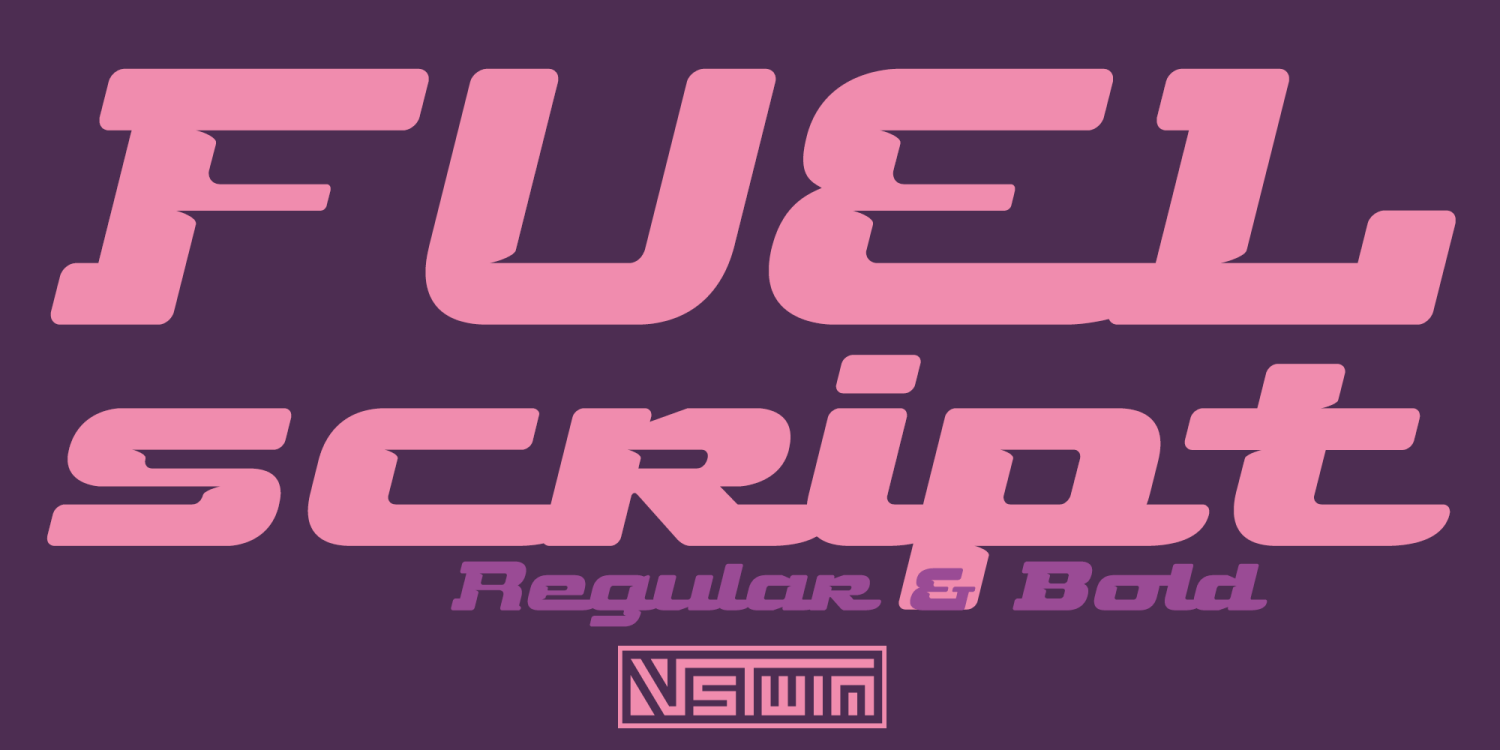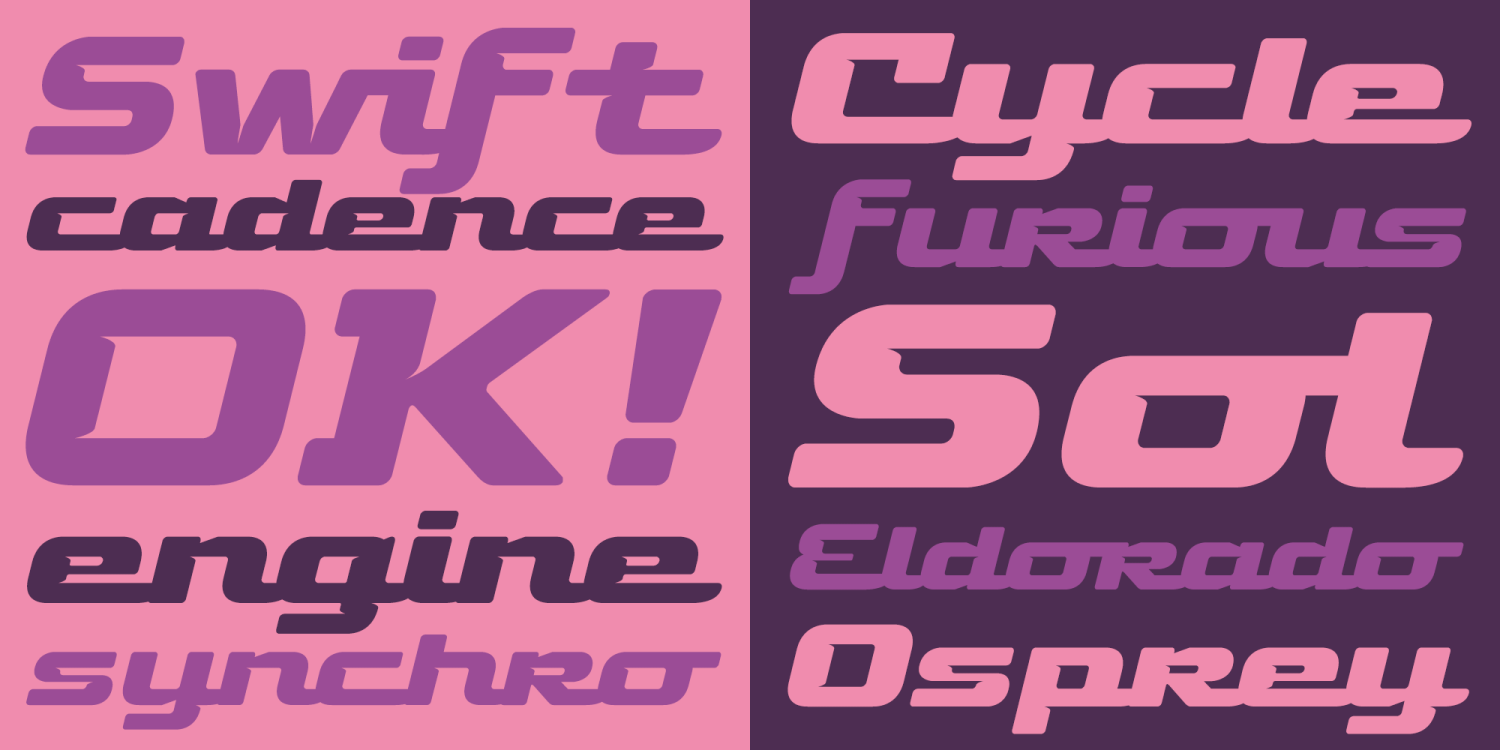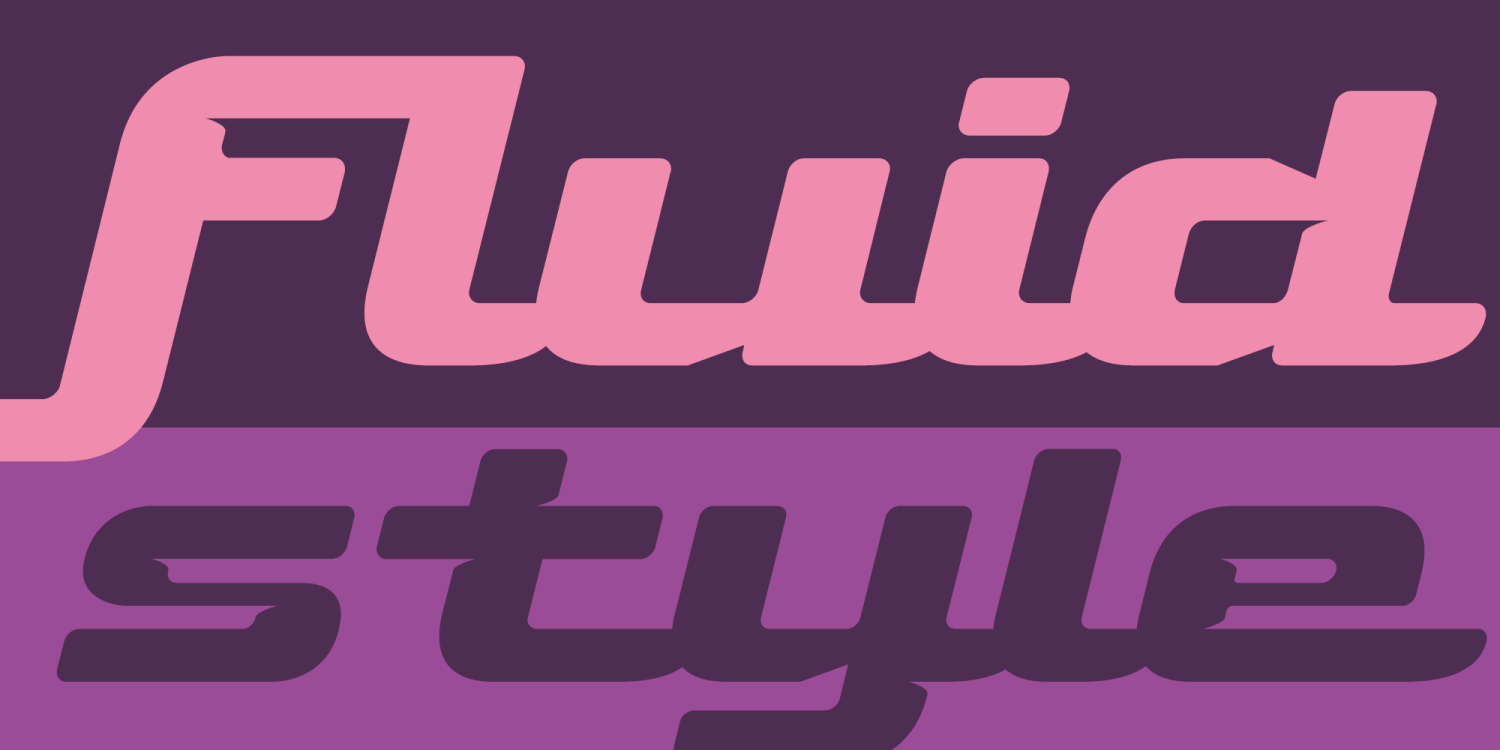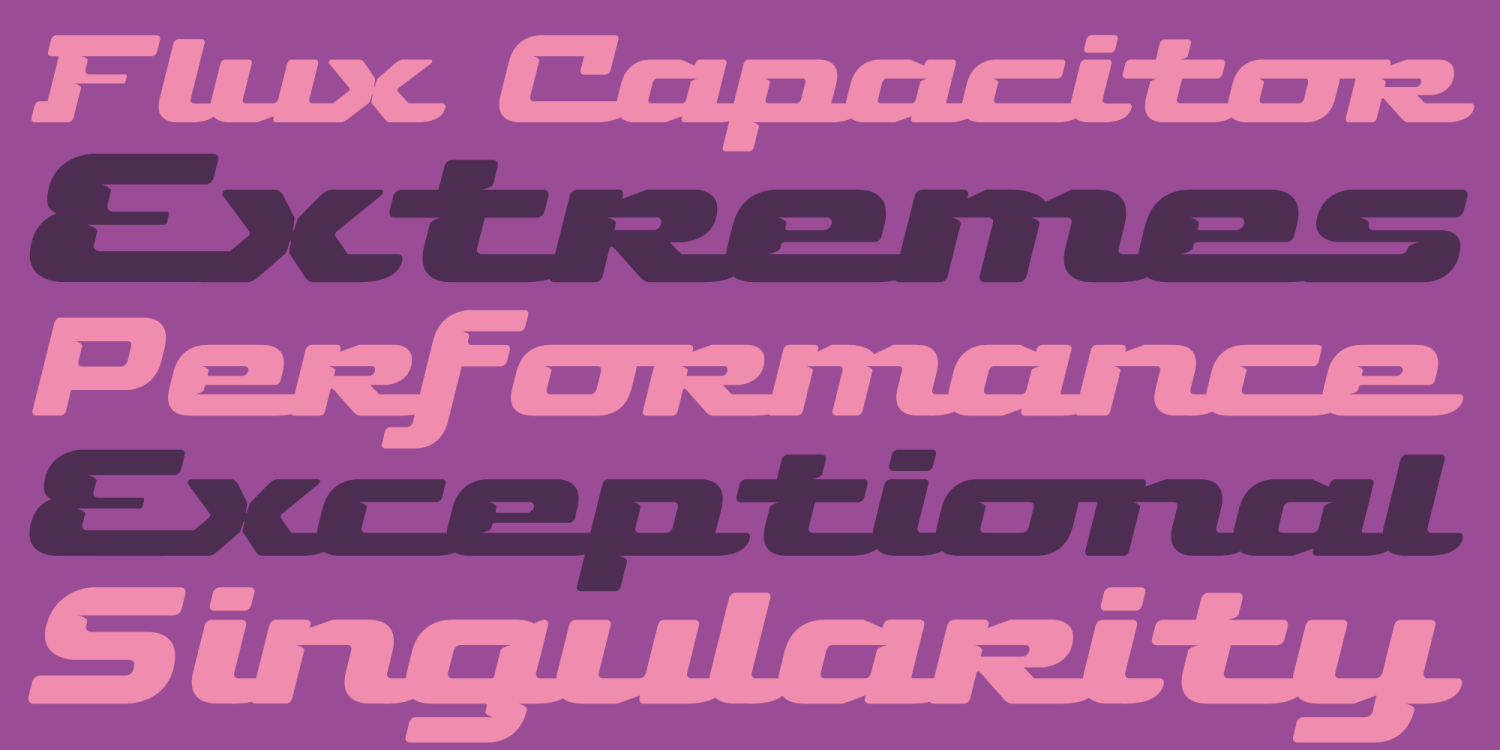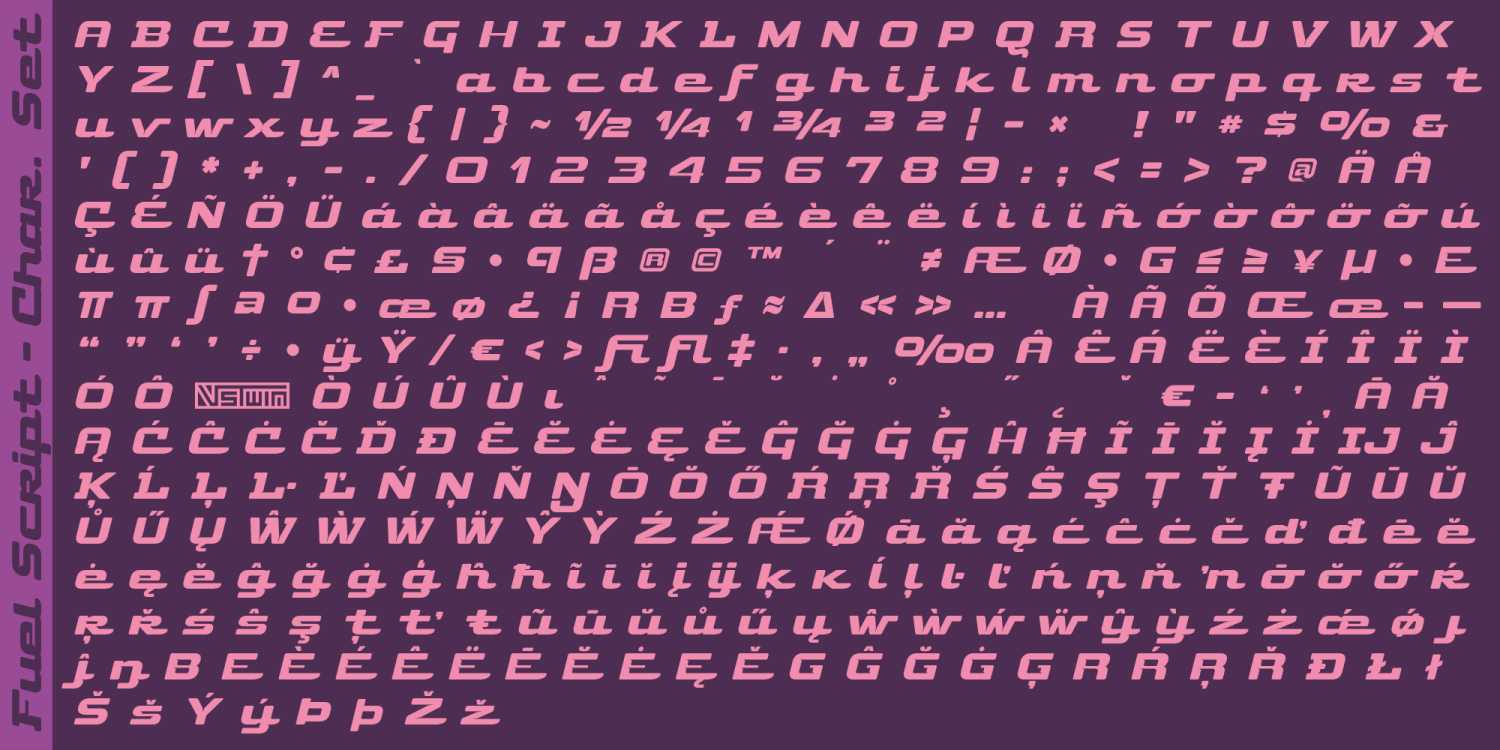
Fuel Script
Font Family by VersusTwin
Fuel Script is a retro-inspired display script that brings the Fuel family into the world of custom lettering and automotive-style typography. Its flowing connected forms, streamlined construction, and rounded detailing give it a fast, polished feel that balances vintage script influence with a cleaner modern edge. Available in Regular and Bold styles, Fuel Script is well suited for logos, branding, packaging, posters, apparel, signage, and headline work that calls for motion, personality, and a stylized handcrafted look. It works especially well on its own or alongside the other Fuel families for projects that need both technical structure and expressive script contrast.